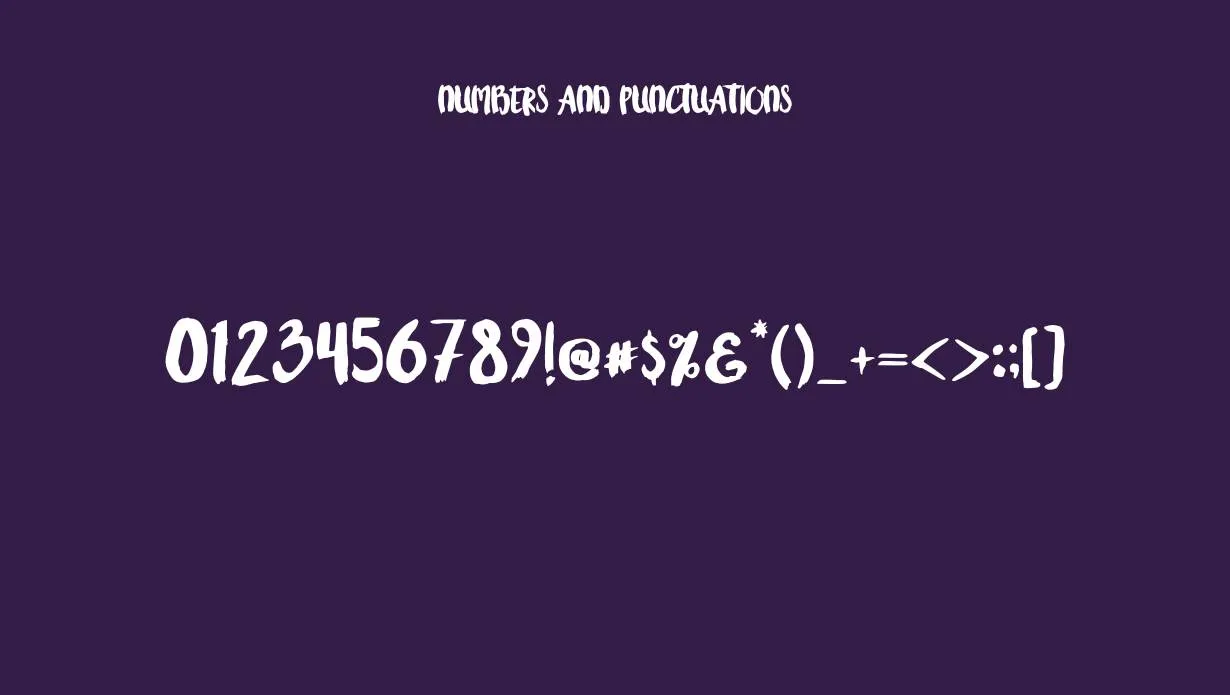
Water Font Free Download
The characters of this Water Font have a bold and slight cursive appearance perfect to attract the attention of a huge audience. This typeface comes from the Script font family.
View of Water Font